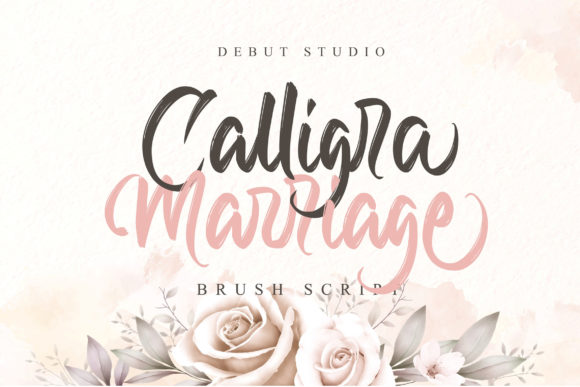
The Wedding Font of Dreams: A Deep Dive into Calligra Marriage
Have you ever been in the middle of a design project, and suddenly, you’re stuck on finding the perfect font? I recall a particularly stressful experience when a client asked for a wedding invitation design that exuded elegance and playfulness. After scouring through countless font libraries, I stumbled upon Calligra Marriage – a lovely script font that instantly captured the essence of the occasion. In this article, I’ll share my journey with this charming font, its features, and how you can make the most of it in your creative projects.
An Honest Review of Calligra Marriage
- ✨ Charming, playful characters that seem to dance along the baseline, adding a touch of whimsy to any design
- 💃 Perfect for wedding invitations, party decor, and other celebratory designs
- 🎨 Highly versatile and can be used for a variety of creative projects, from branding to packaging
While Calligra Marriage is an exceptional font, there are a few minor considerations to keep in mind:
- ⚠️ As a script font, it may not be the best choice for body text or long paragraphs
- 🤔 Some users may find the font a bit too ornate for certain design projects
A Practical Guide to Using Calligra Marriage
The Backstory of Calligra Marriage
While the origins of Calligra Marriage are unclear, it’s likely that the font was inspired by traditional calligraphy and hand-lettering techniques. The designer may have sought to create a font that captures the elegance and playfulness of handwritten scripts, while also being highly legible and versatile.
Q: Is Calligra Marriage suitable for body text or long paragraphs?
A: While Calligra Marriage is a beautiful font, it’s not ideal for body text or long paragraphs. It’s best used for headings, titles, or short text elements.